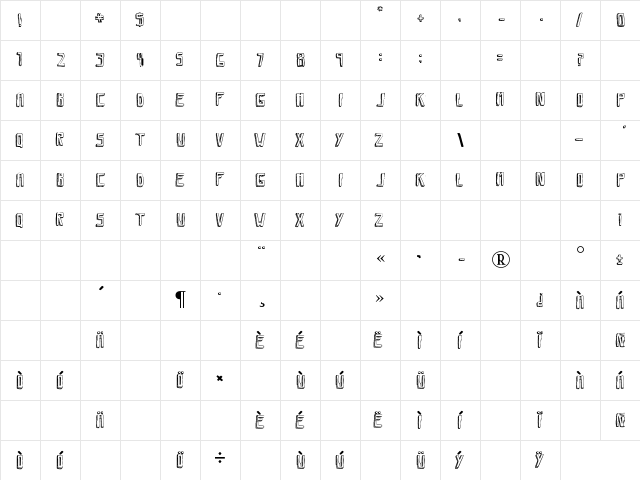
Savia Regular Free Font
Savia Regular
Designer: Julia Martinez Diana. ANTIPIXEL
Design Context for Savia
Savia is a composed and adaptable typeface that performs quietly and consistently across a wide range of design contexts.